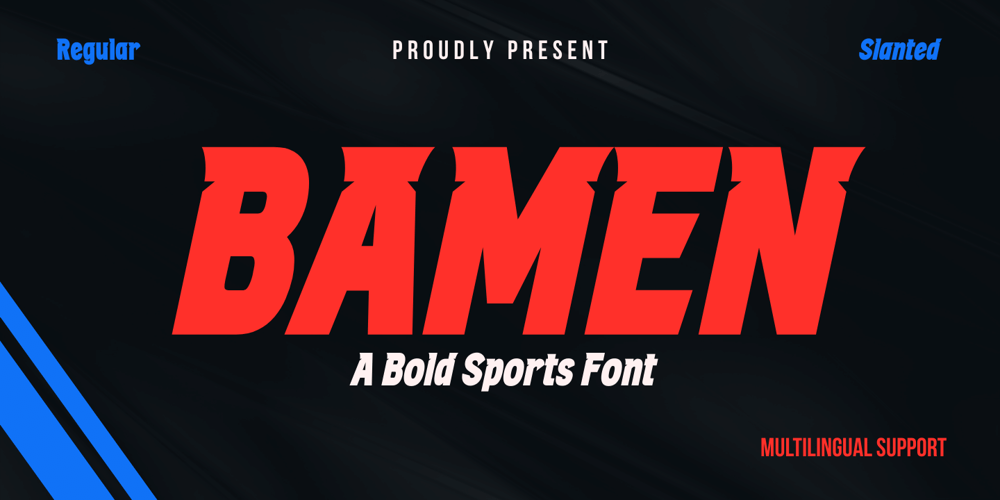
Bamen
Bamen font
Bamen Font Family was designed by Rozikan and published by Twinletter. Bamen contains 2 styles and family package options. Are you looking for a modern, athletic sports font? Popular typeface Bamen is appropriate for contemporary designs, including sports, vehicle commercials, and headlines. This dynamic typeface provides your title’s speed and power with its cool cuts and wide strokes. This typeface was made with speed in mind because it was created primarily for use in the fast-paced world of sports. It has a fantastic overall vibe that exudes speed, strength, and power while still maintaining its distinctive beauty.What’s Included :- All glyphs Iso Latin 1- Alternate, Ligature- Simple installations- We highly recommend using a program that supports OpenType features and Glyphs panels like many Adobe apps and Corel Draw, so you can see and access all Glyph variations.- PUA Encoded Characters – Fully accessible without additional design software.- Fonts include Multilingual support